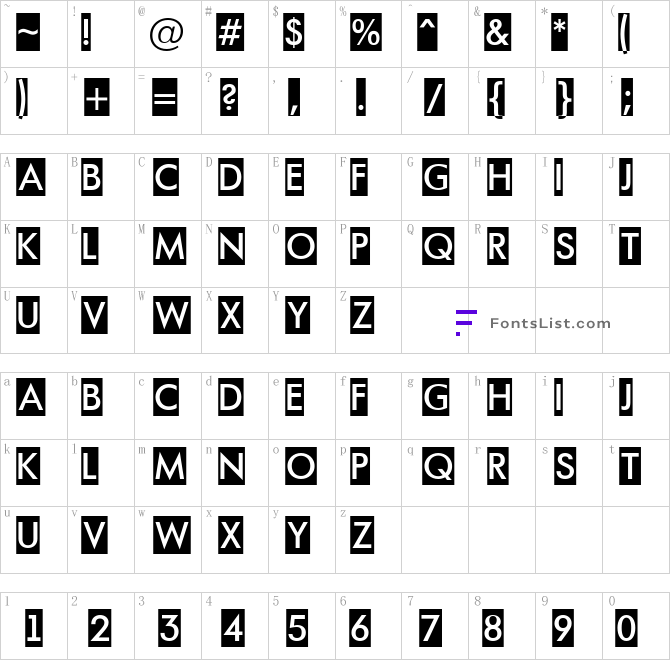
- Font Name:a_FuturaOrtoTitulCm
- Subfamily:a_FuturaOrtoTitulCm
- Full Name:a_FuturaOrtoTitulCm
- PostScript:a_FuturaOrtoTitulCm
a_FuturaOrtoTitulCm.ttf is a very beautiful artistic font, a_FuturaOrtoTitulCm.ttf is widely used in the design and printing of various books and pictures,a_FuturaOrtoTitulCm.ttf has a strong visual impact,a_FuturaOrtoTitulCm.ttf is a commonly used font in newspapers, magazines and books, and is used in posters, e-commerce Poster design, store design, logo design, font design and other fields.a_FuturaOrtoTitulCm.